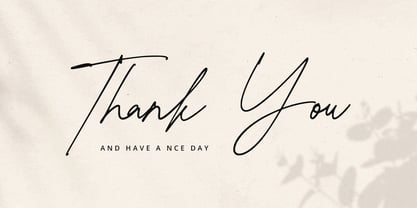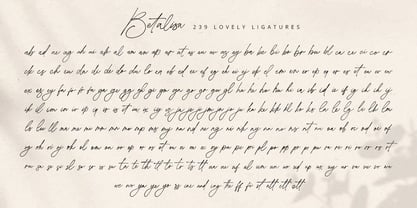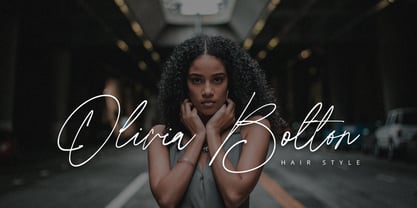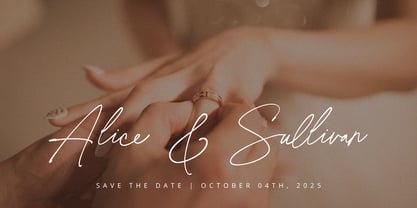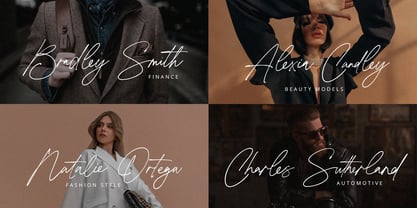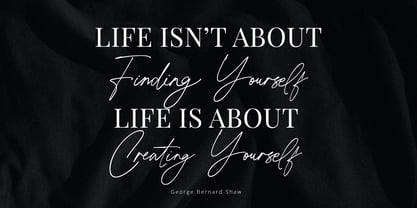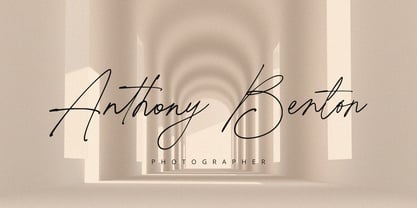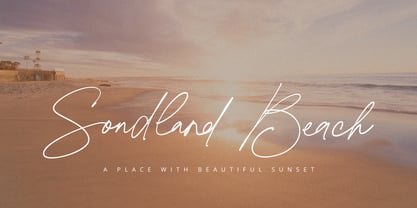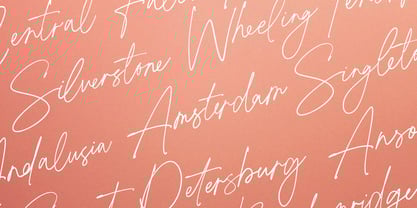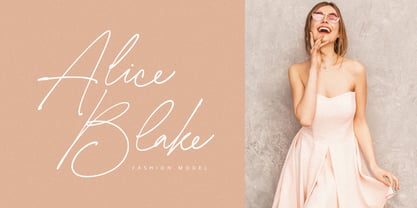
Betalisa
by Alpaprana
The Betalisa Font Family was designed by Nadia Salsabila and published by Alpaprana. Betalisa contains 1 styles. More about this family
Betalisa is a stylish signature font with authentic and casual feels. It will be perfectly used for Branding, Logo Design, Lettering, Logotype, Clothing, Poster, magazine, packaging, posters, shopping bags, t-shirts, book covers, photography, special events and other design project.